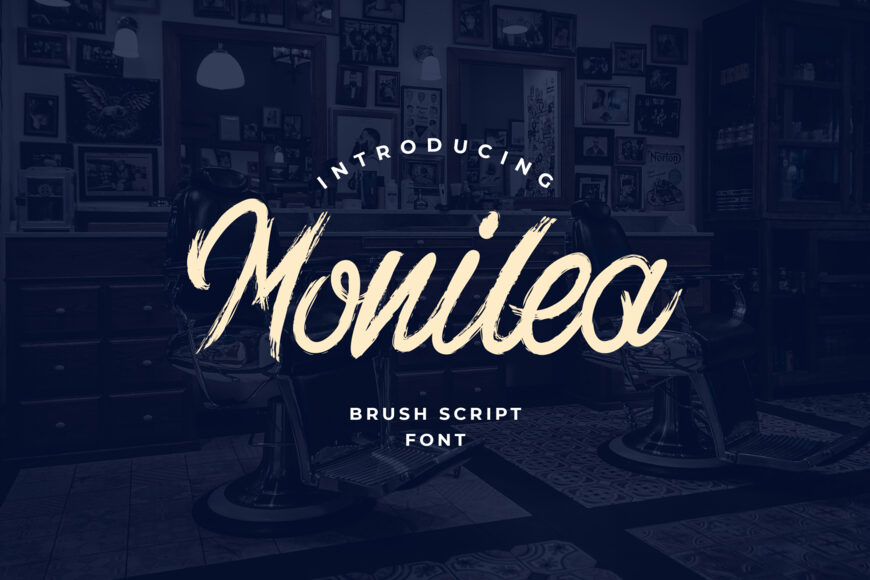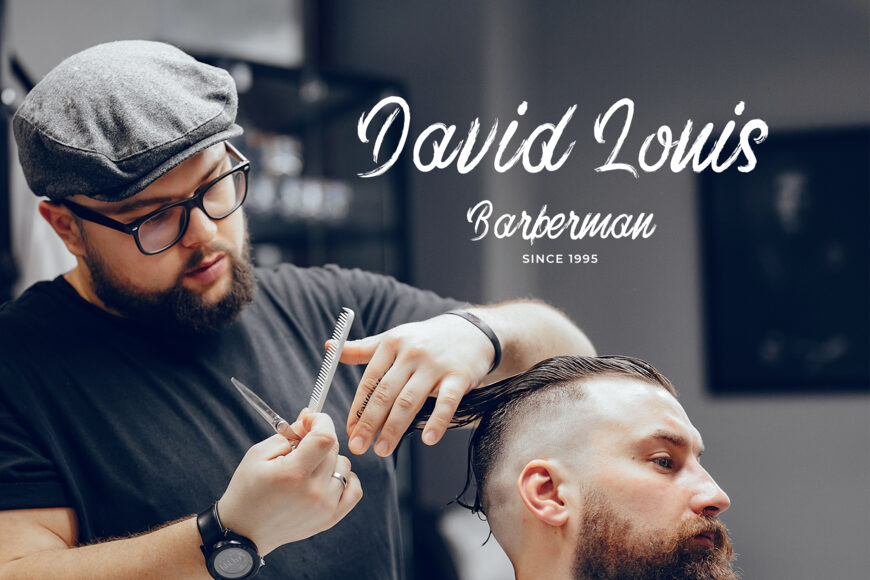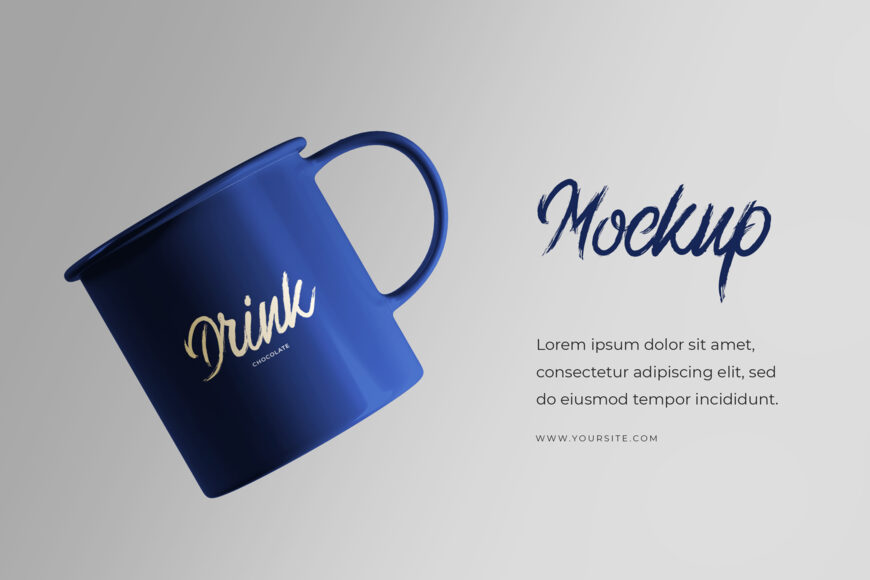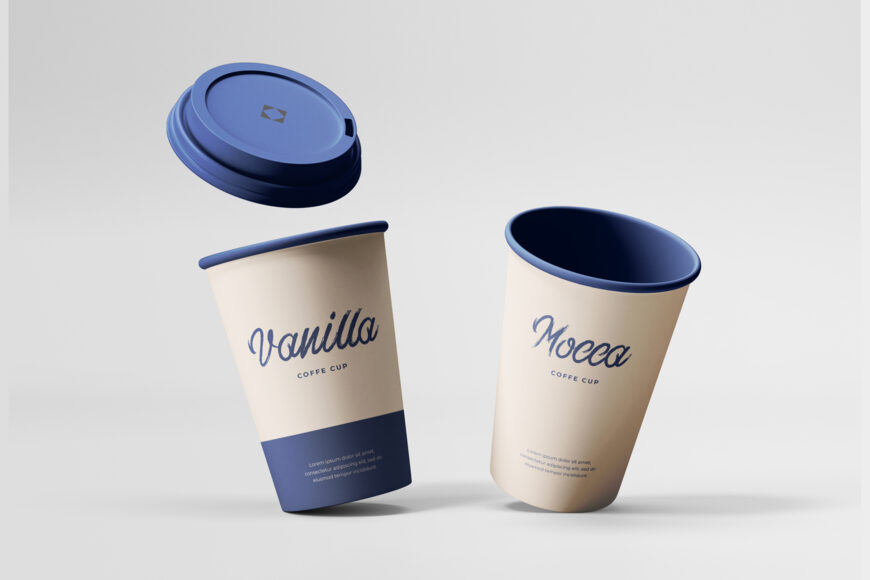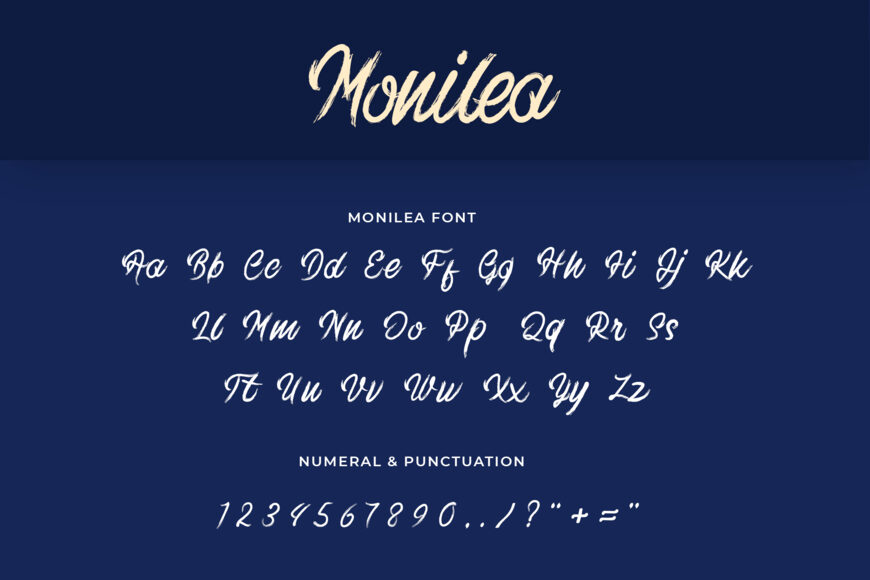
Monilea Font
Monilea is a cursive and unique brushed handwritten font. Its casual and neat style makes it fitting to a wide range of designs. Use it for posters, urban projects or headlines.